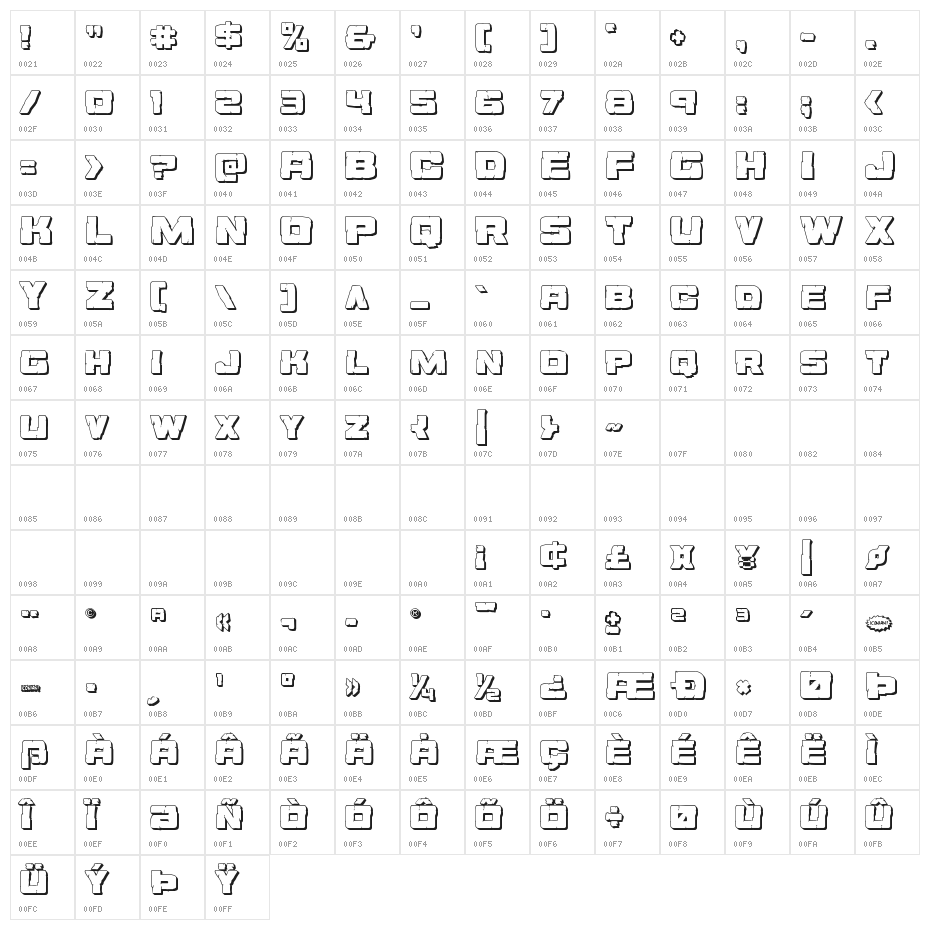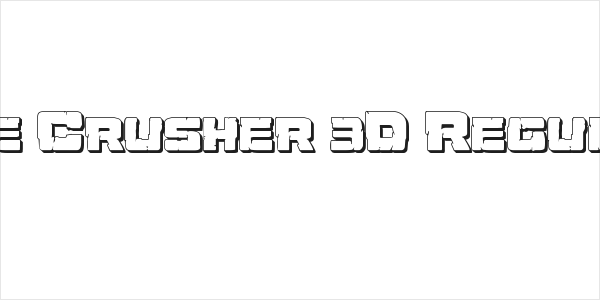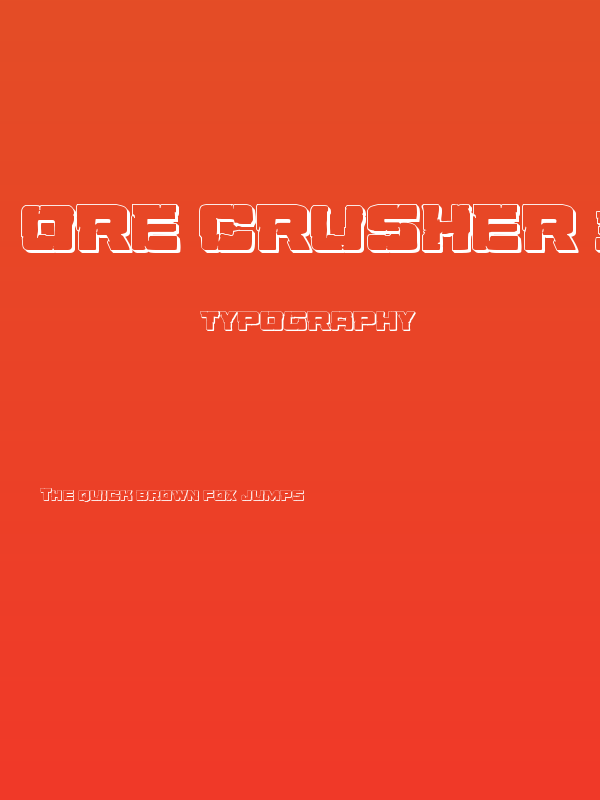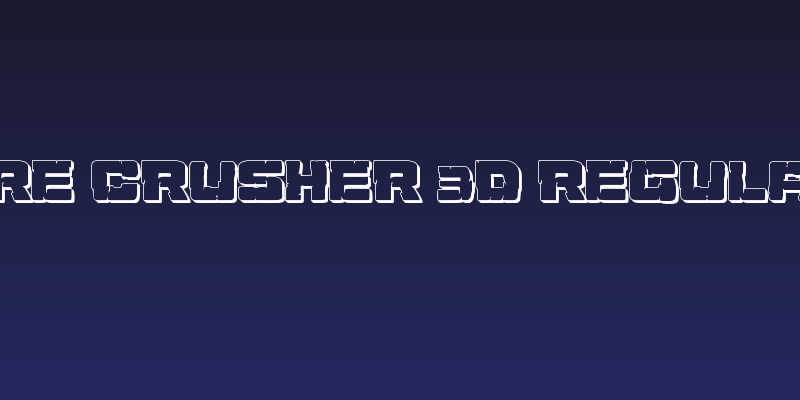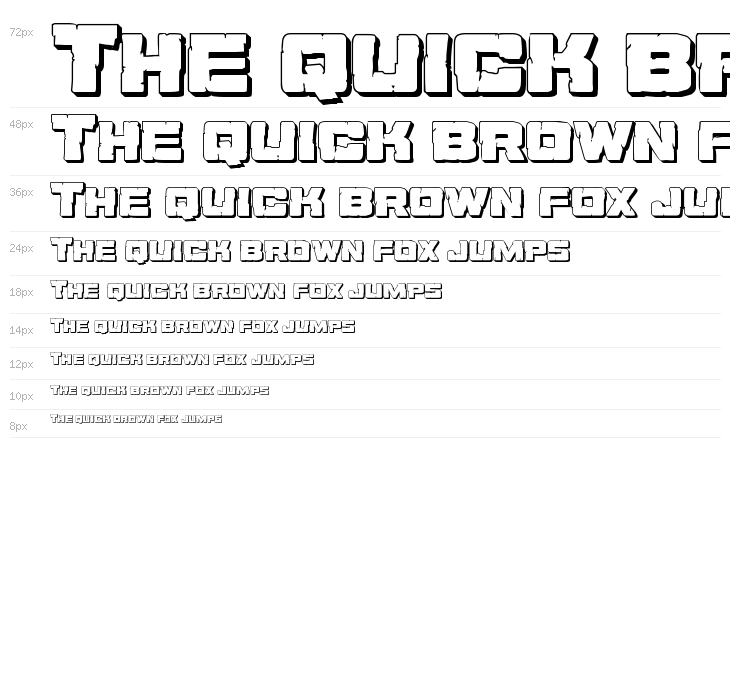
Ore Crusher 3D Regular Font
Ore Crusher 3D Regular Description
This font features a bold, industrial design with a three-dimensional effect that gives each character a rugged, block-like appearance. The edges are slightly rough, adding a sense of texture and depth, reminiscent of carved stone or metal. The uppercase and lowercase letters maintain a consistent style, with strong, angular lines and a solid presence. Numbers and special characters follow the same robust design, ensuring uniformity across all elements. The font's unique style makes it stand out, ideal for projects that require a strong, impactful visual statement.
Overall StyleIndustrial, Modern
Proposed ProjectsIdeal for video game titles, movie posters, industrial-themed branding, or any project needing a strong, impactful typeface.